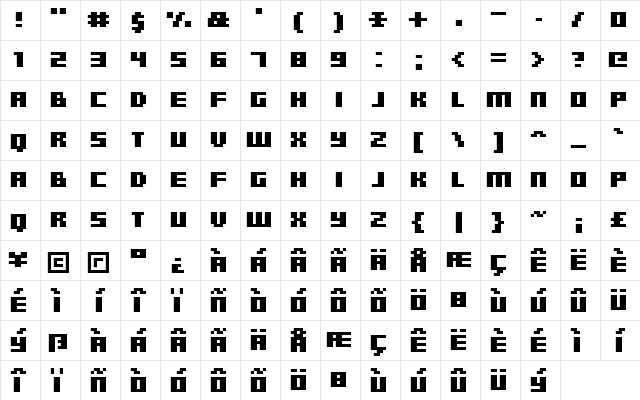
FFF Planeta Bold Regular
Design Context for FFF Planeta Bold
FFF Planeta Bold is a composed and adaptable typeface that performs quietly and consistently across a wide range of design contexts. Its bold stroke weight gives it real presence on the page.